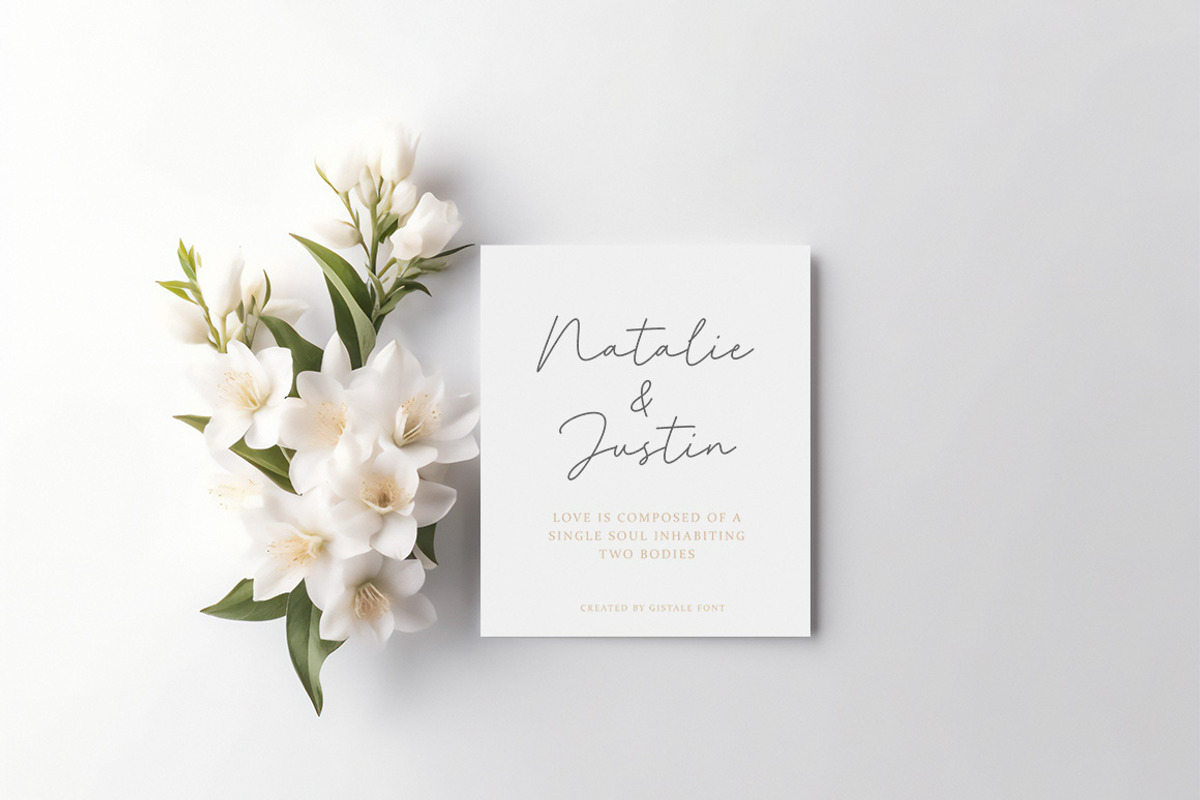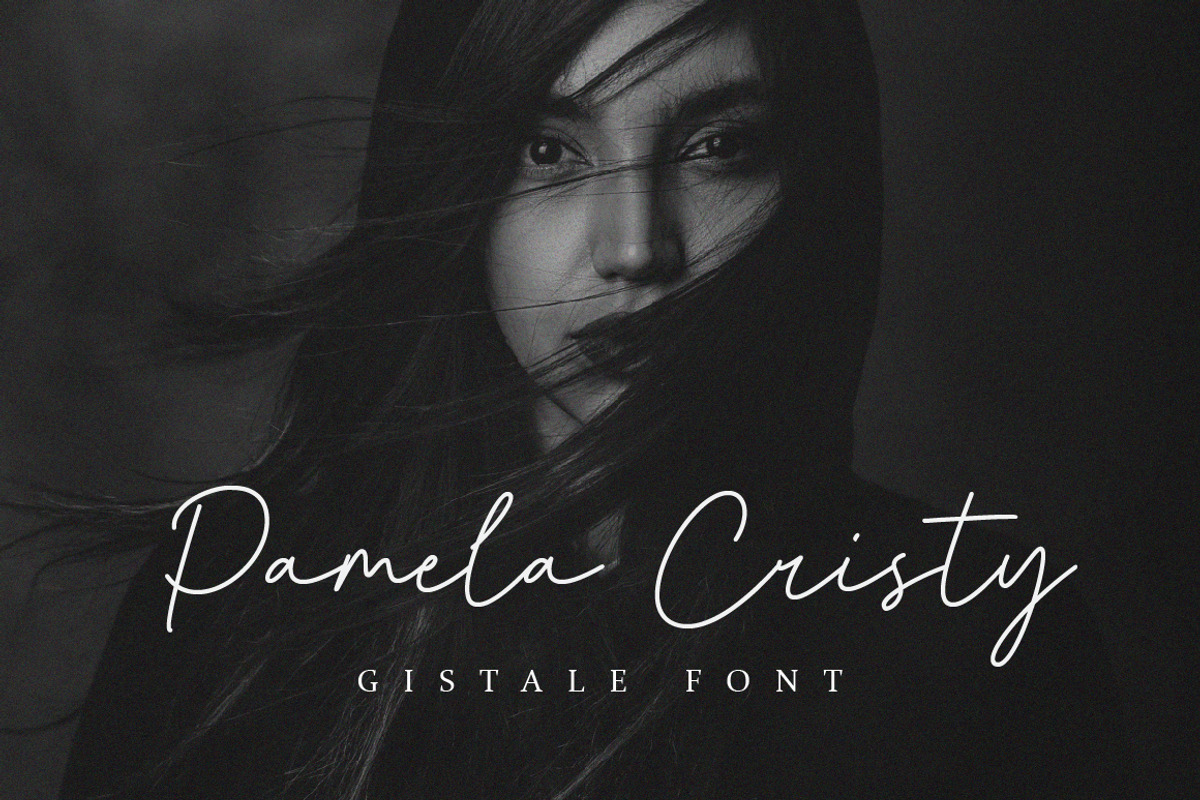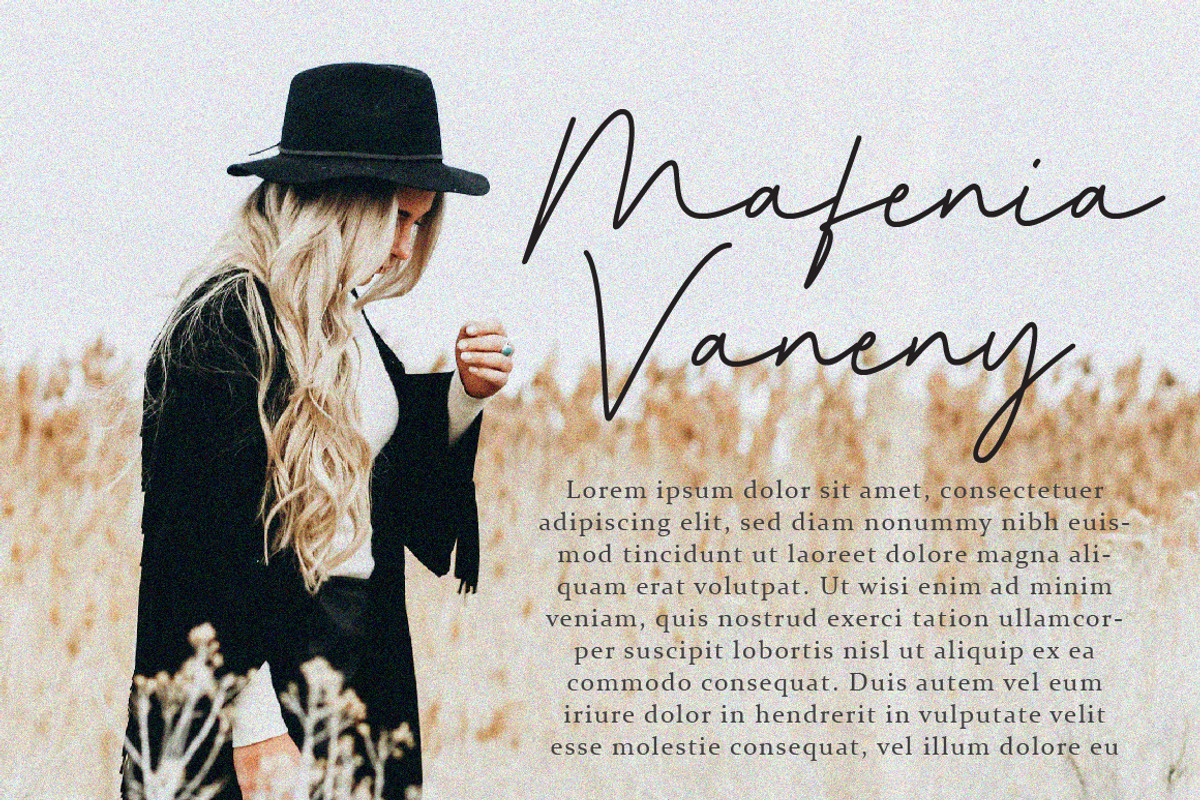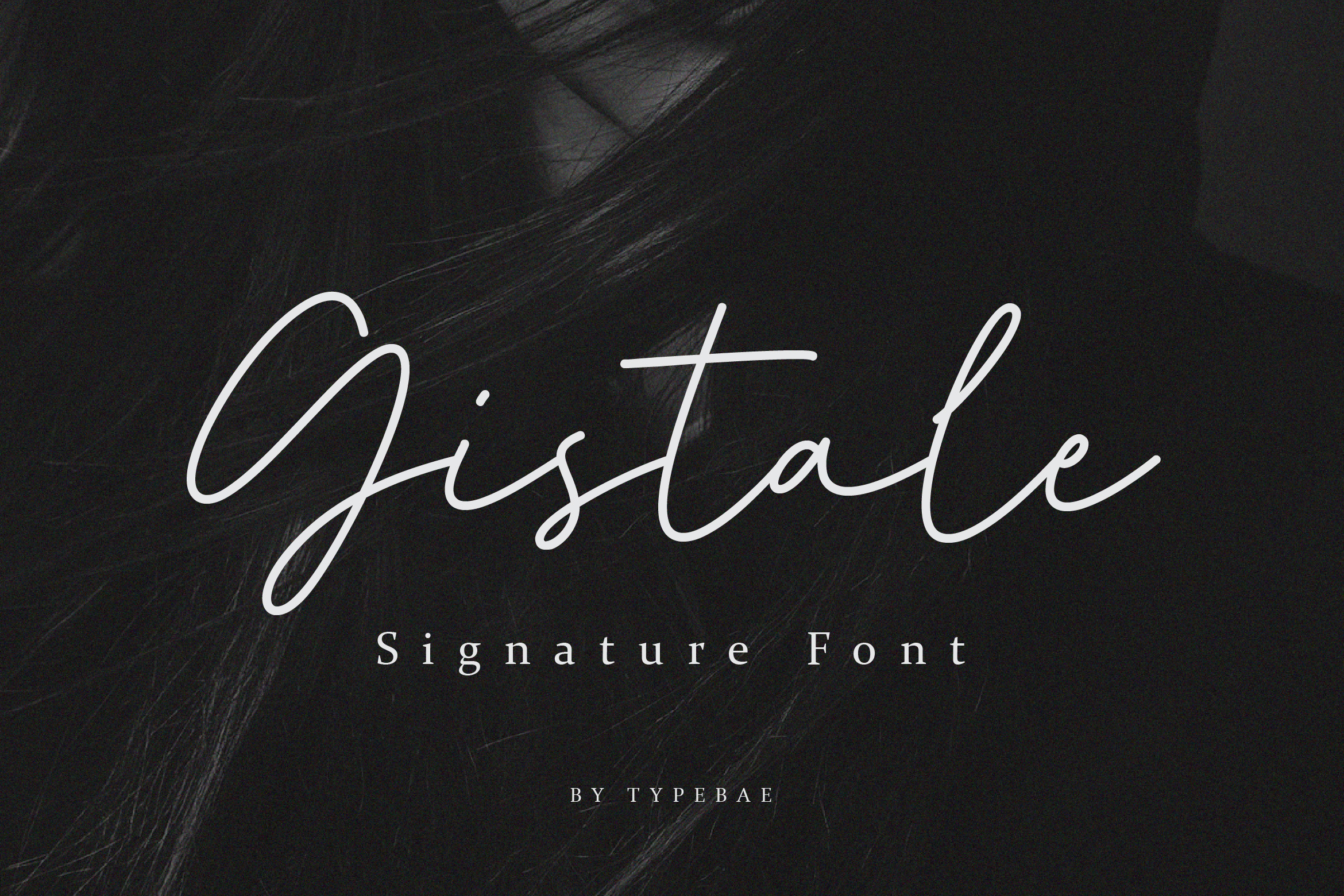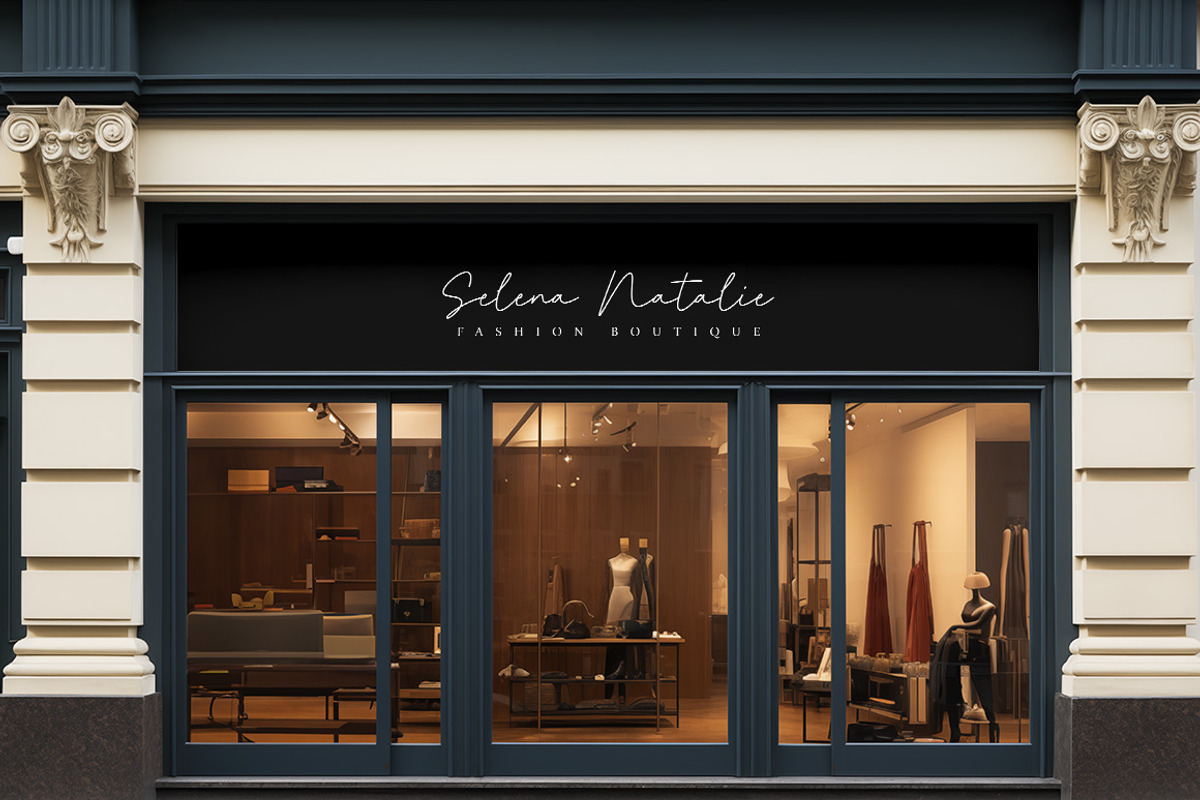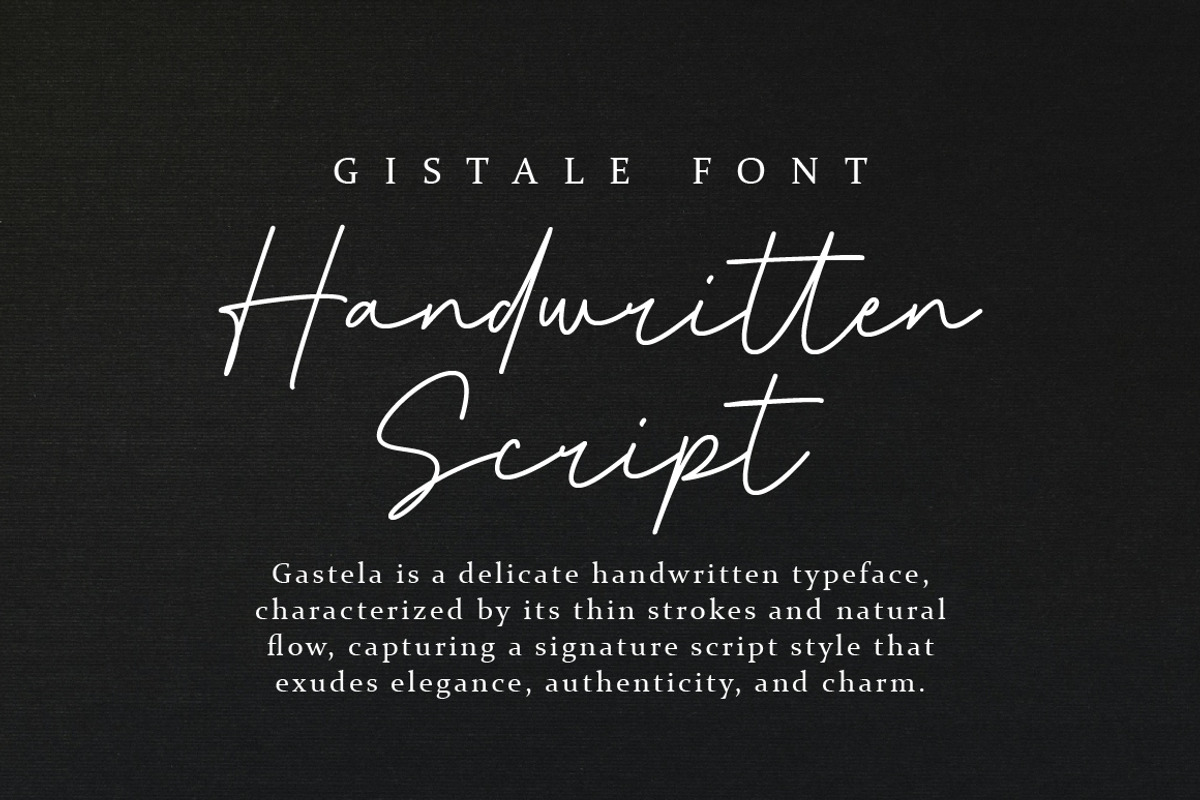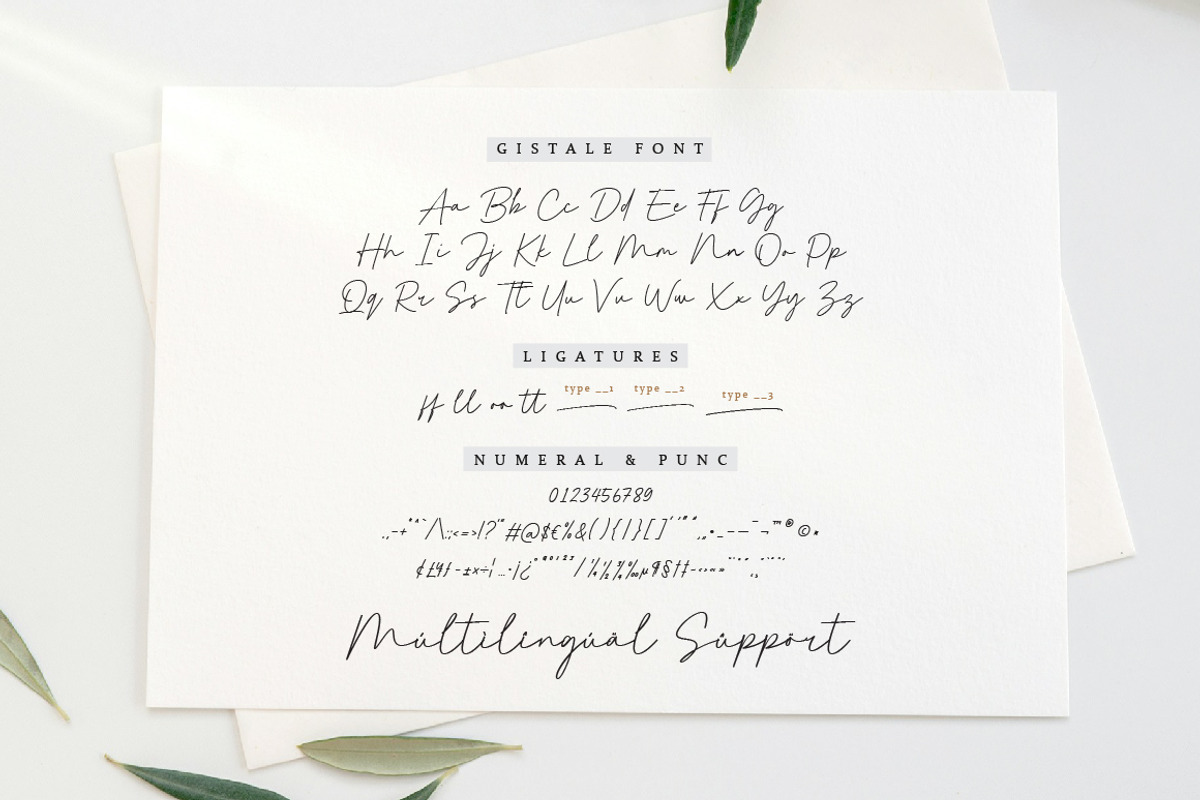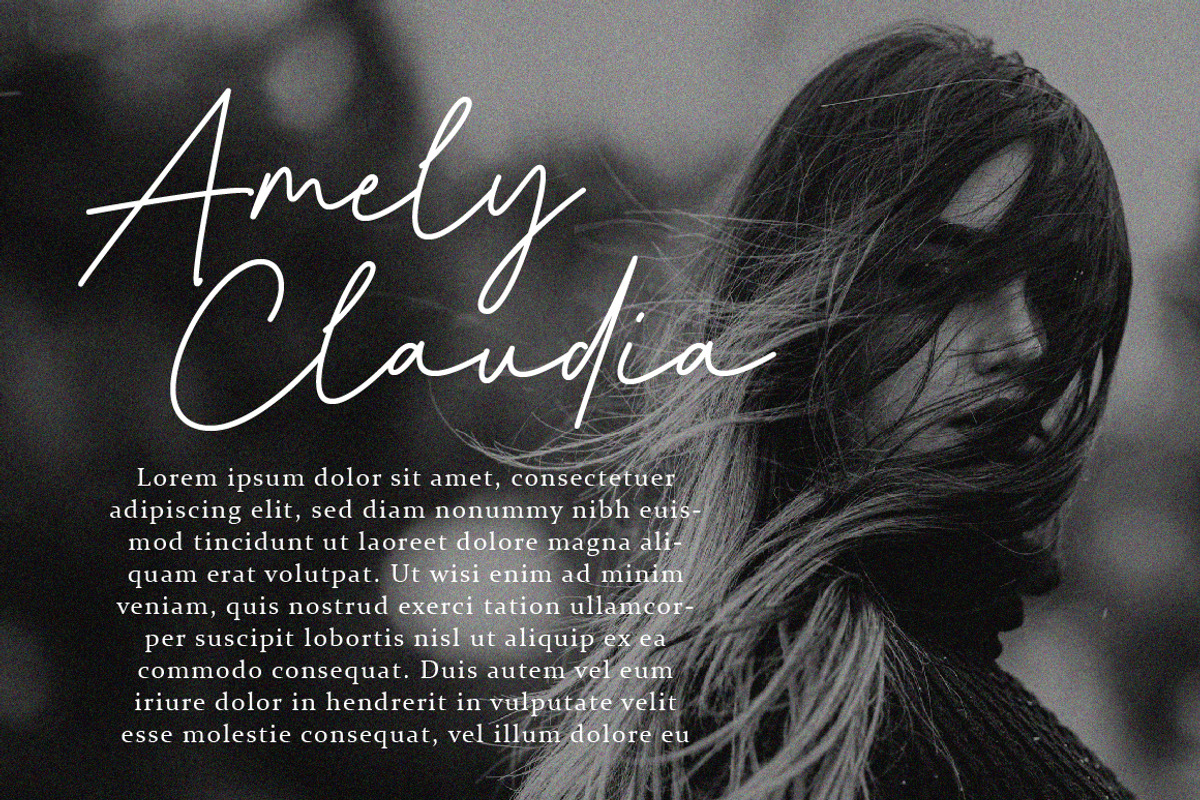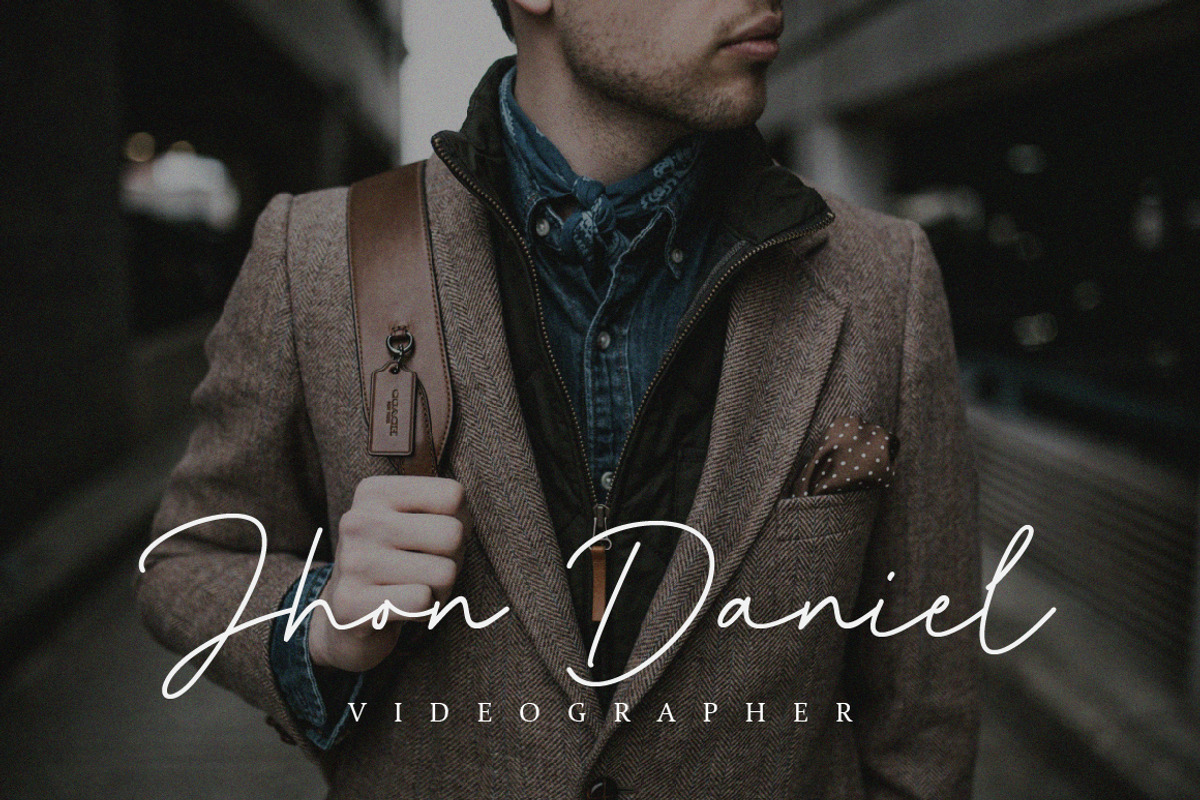
Gistale - Signature Script Font
Gistale is a delicate handwritten script font, characterized by its thin strokes and natural flow, capturing a signature script style that exudes elegance, authenticity, and charm.
- Uppercase, Lowercase, Numeral, Punctuation & Symbols
- Ligatures, Multilingual and PUA encoded.